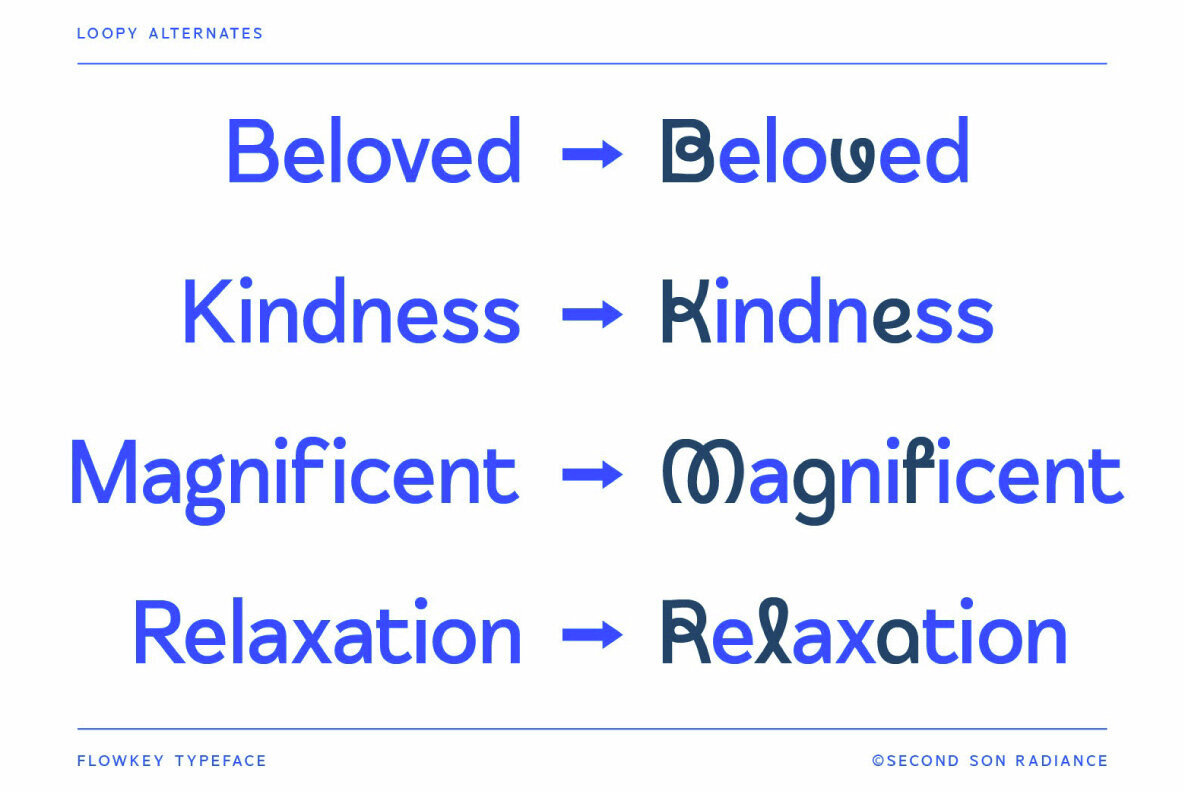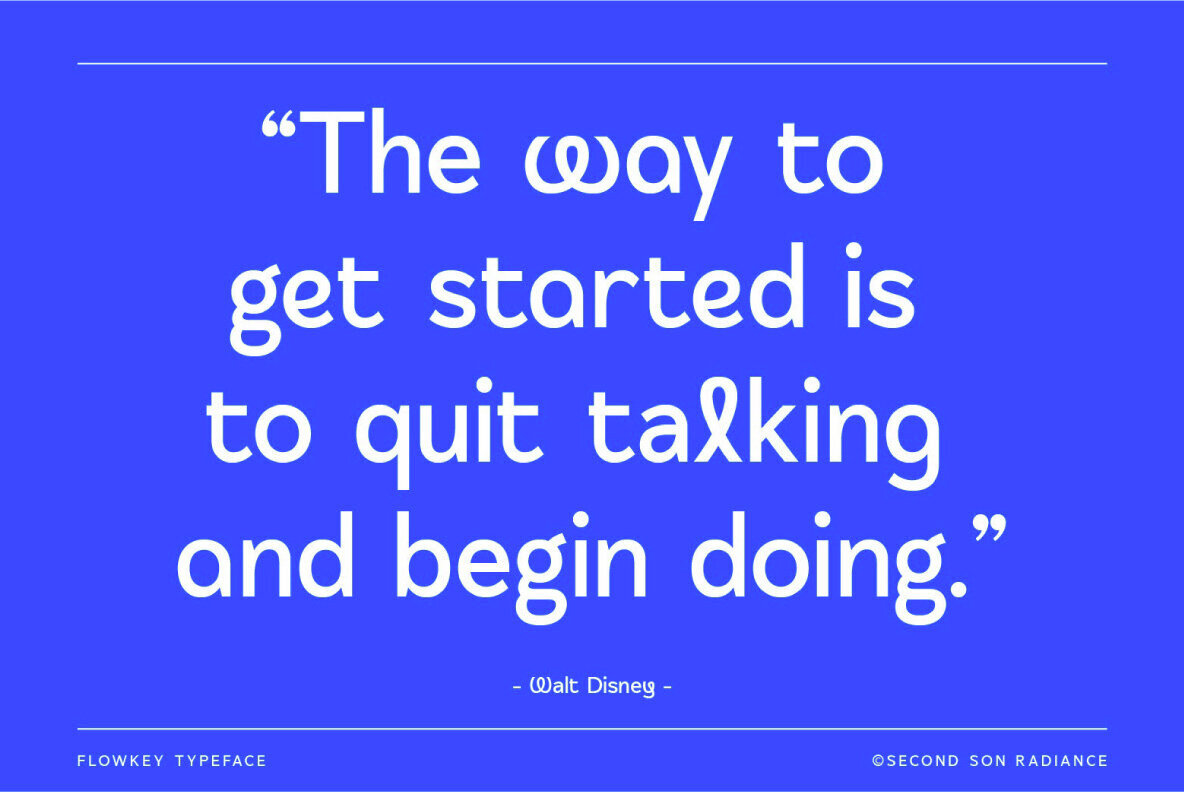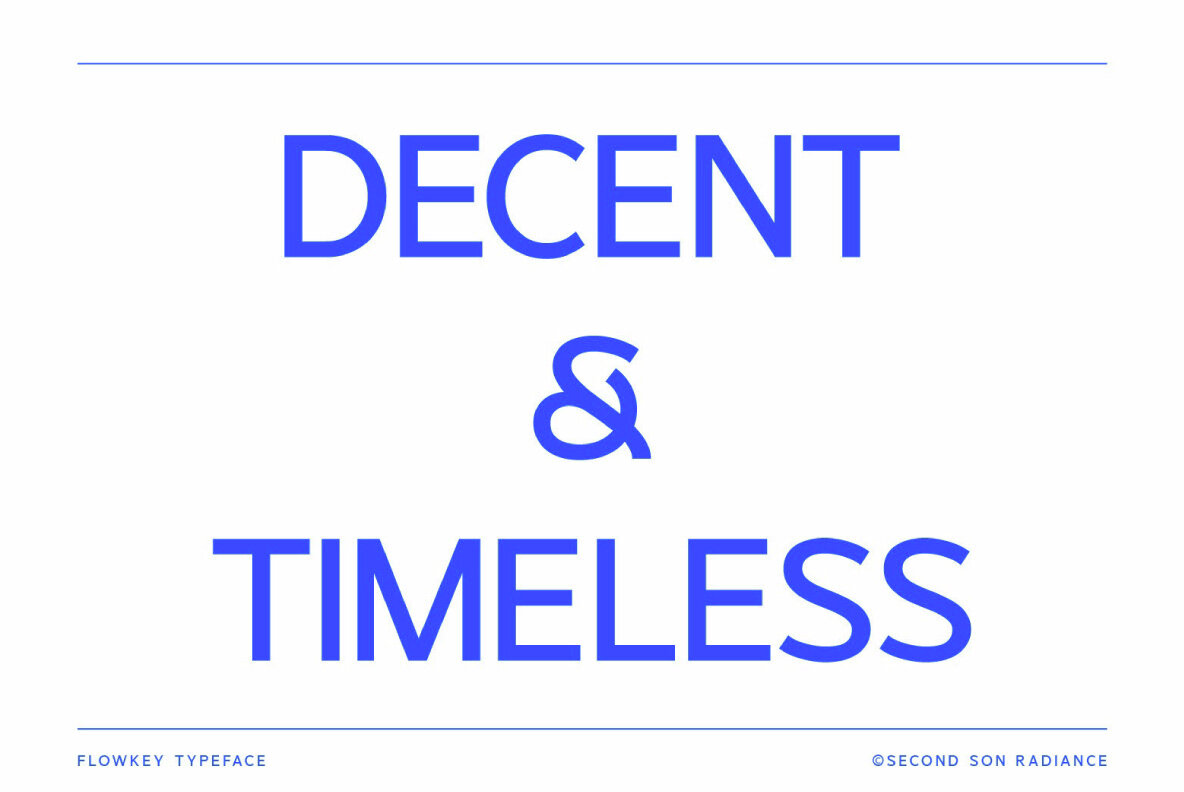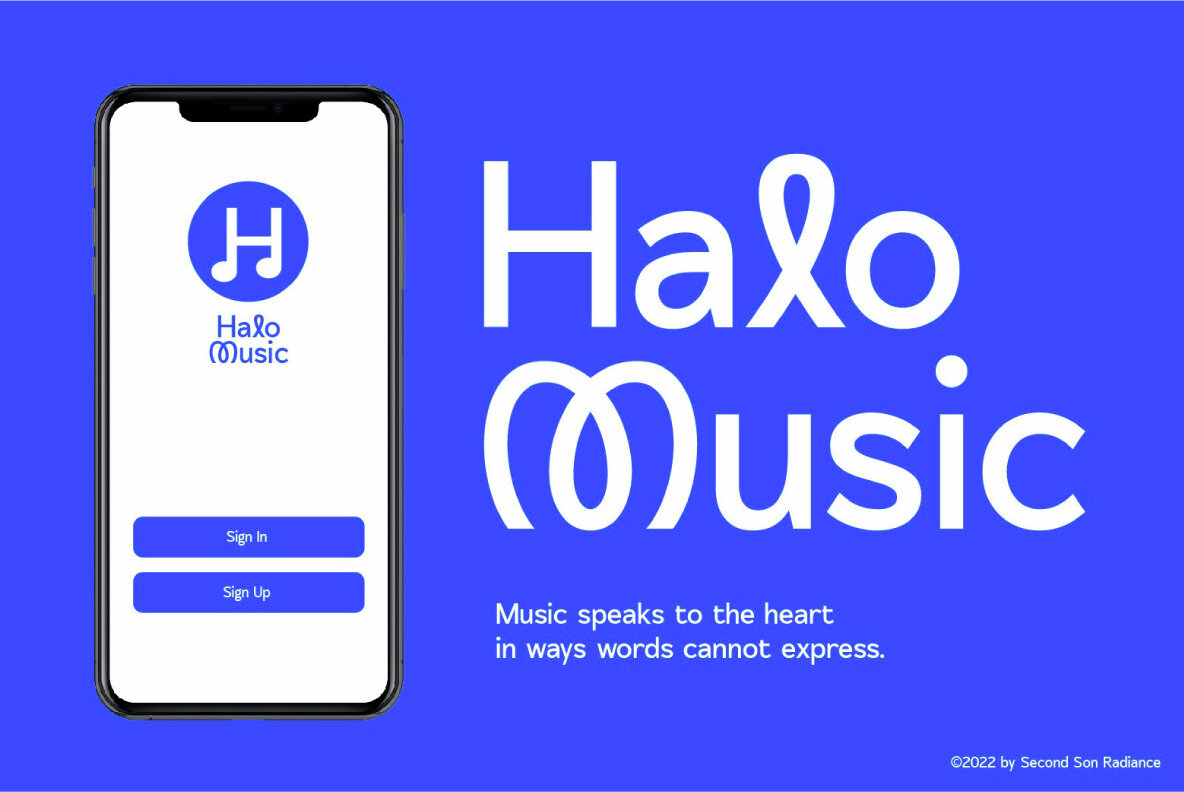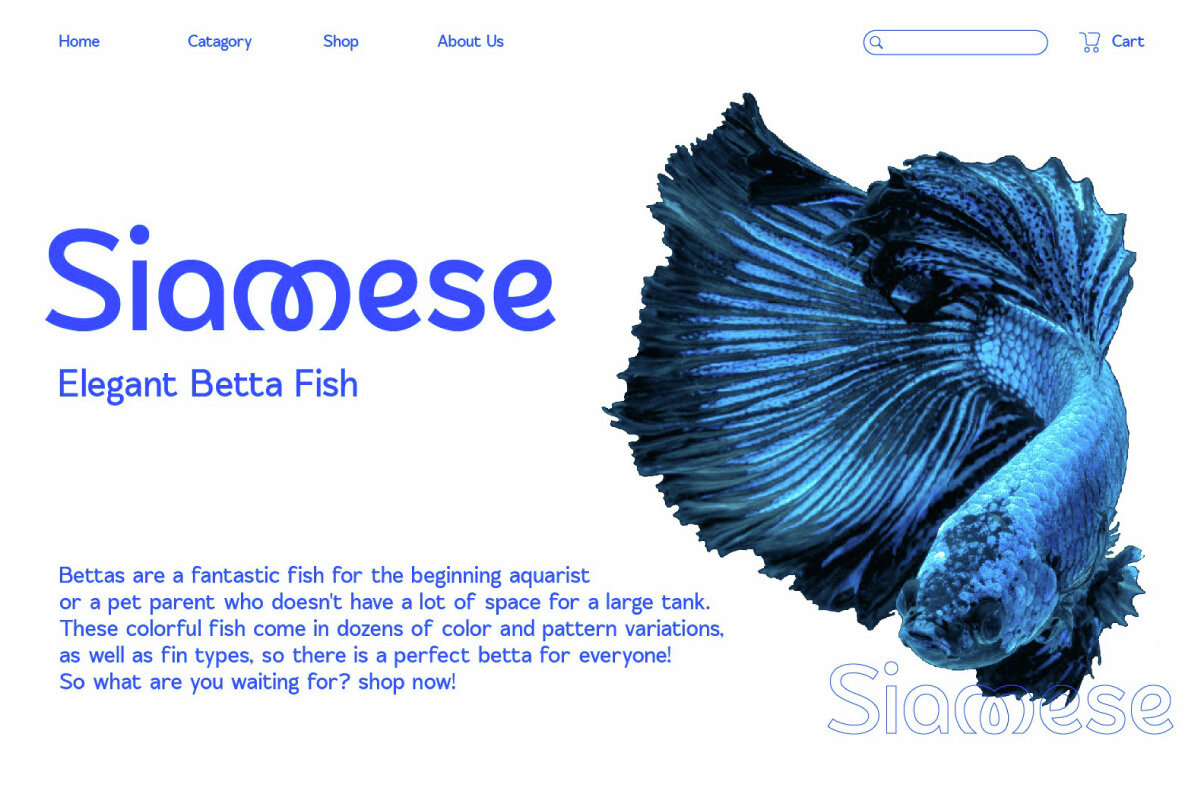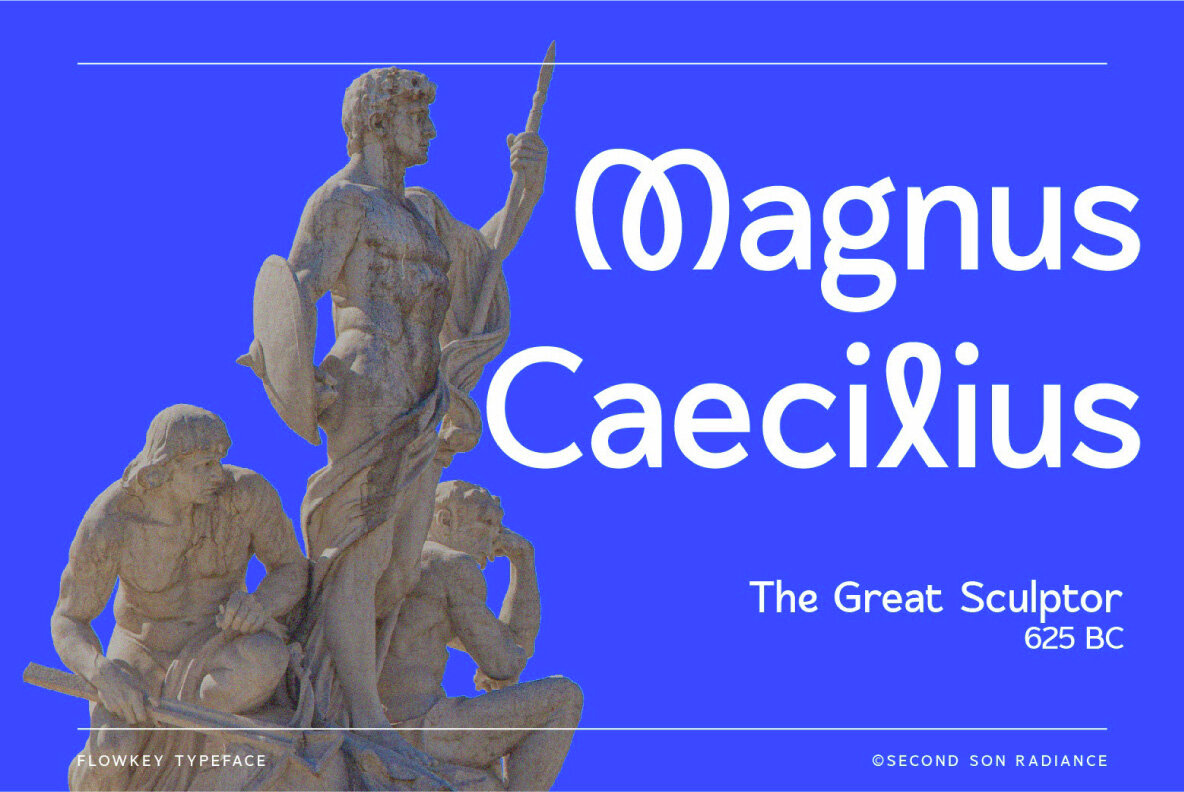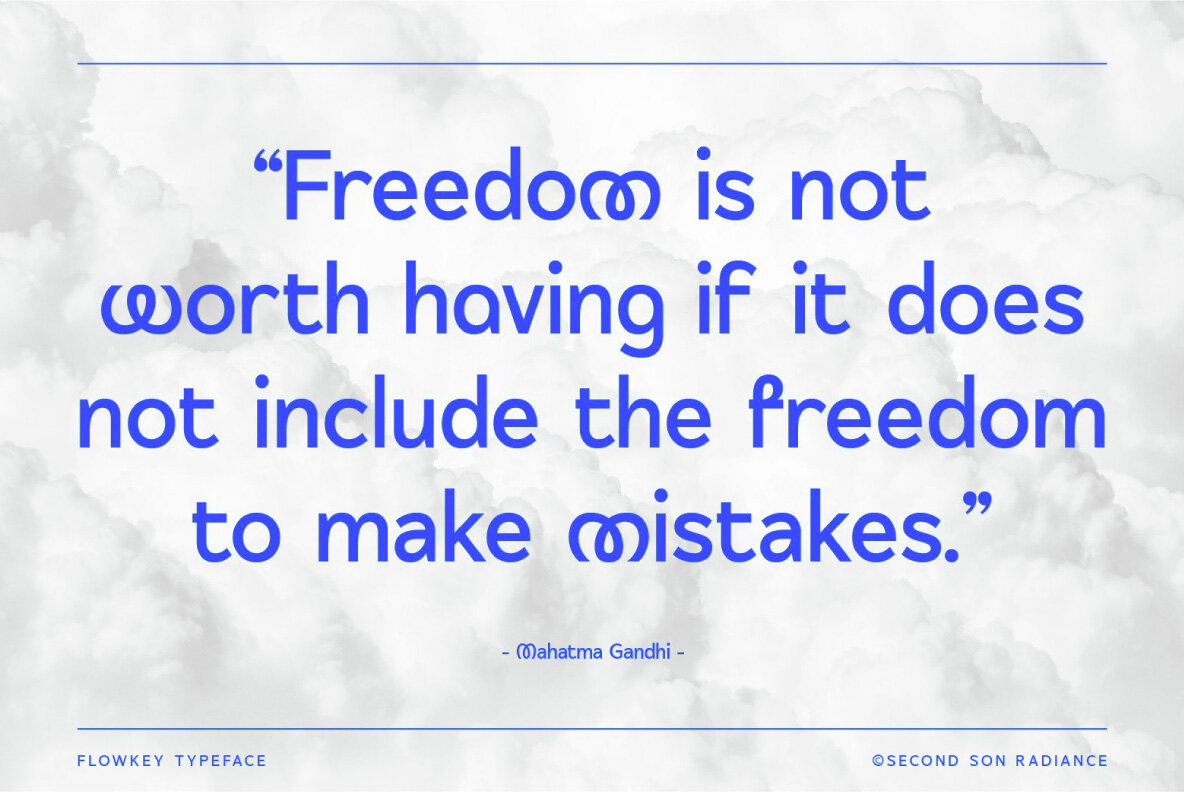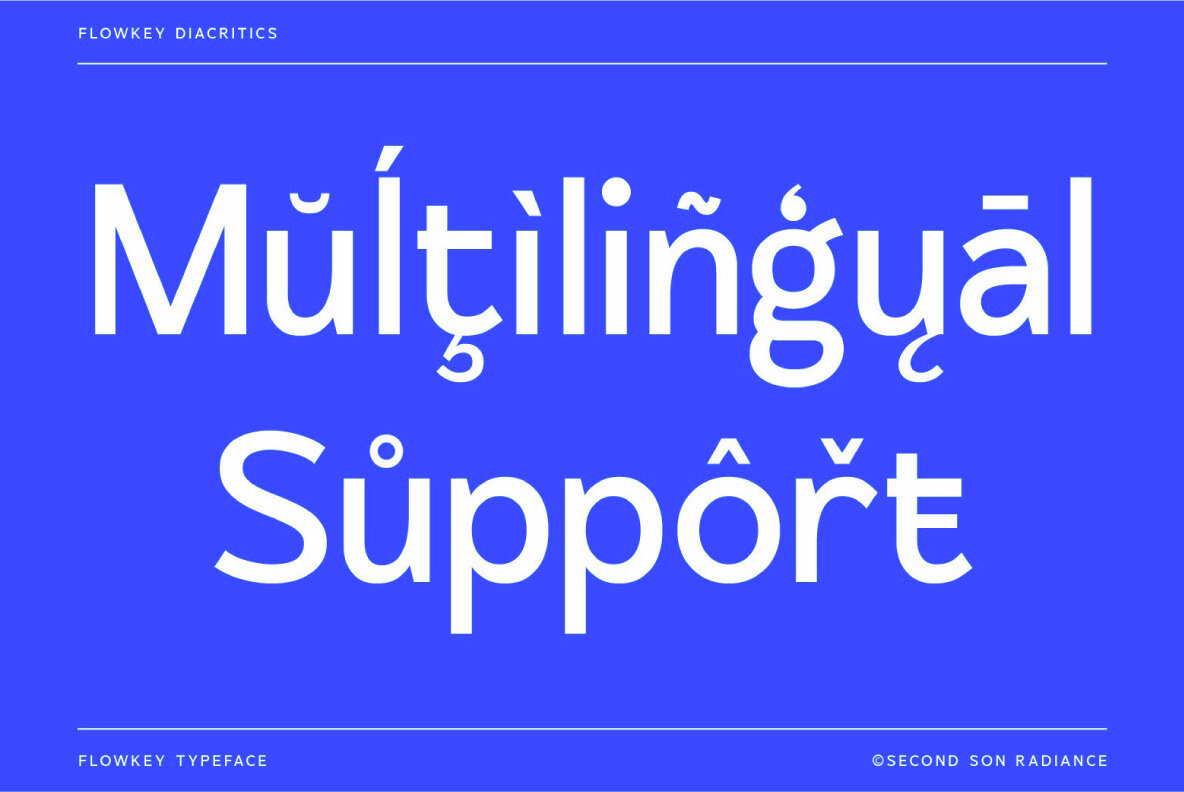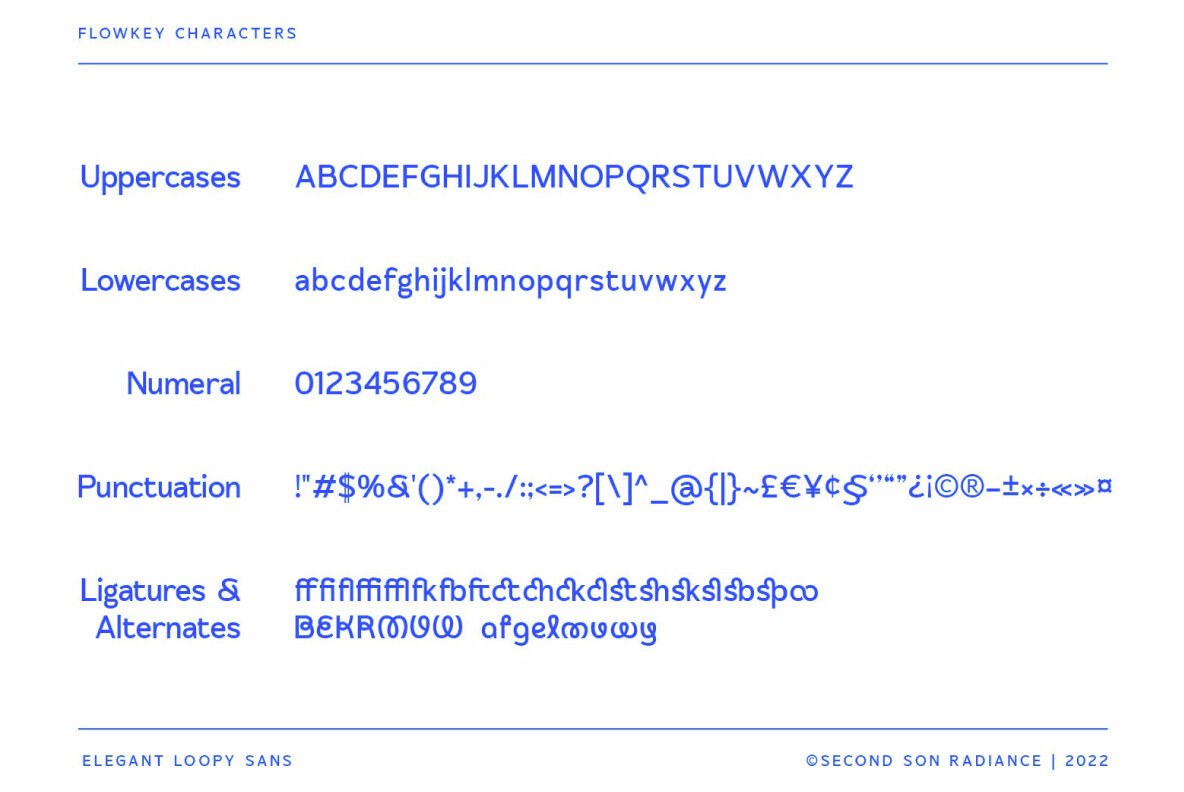
SS Flowkey Font
Flowkey Regular
Flowkey is a timeless and elegant loopy sans serif font designed to bring a touch of sophistication to your projects. Its classy and refined style makes it a versatile choice for various design applications, including wedding invitations, business branding, and fashion events. Flowkey is also well-suited for logos, book covers, art quotes, and editorial designs, offering a unique blend of fancy and chic aesthetics that enhance any visual presentation.
Key Features:
- Includes basic Latin characters A-Z and a-z
- Supports numbers and punctuation
- Offers ligatures and alternates for creative flexibility
- Provides multilingual support
Utilize Flowkey to elevate the elegance of your designs and infuse your work with a sense of classic charm and style.